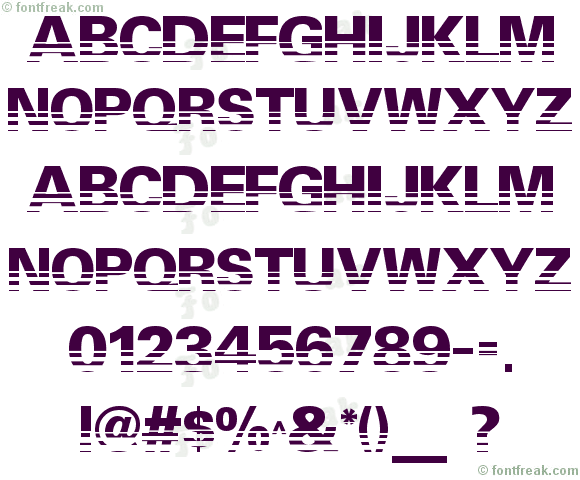
Ventilate
About Ventilate
Ventilate is a striking display font designed by Astigmatic One Eye, a division of Cav Op Studios, and released in 1996. This shareware font embodies a modern and innovative style, blending elements of both geometric and dynamic design. Characterized by its unique stroke weight and contrast, Ventilate features bold, thick lines that taper and flow into lighter strokes, creating a sense of movement and energy. The spacing between characters is well-balanced, ensuring readability while maintaining a visually engaging appearance.
This font is perfect for a variety of creative applications. It excels in use cases such as eye-catching movie posters, where its bold characteristics can grab attention and convey excitement. Additionally, Ventilate can elevate branding materials for modern restaurants or cafes, providing a contemporary feel to menus and signage. Its playful yet sophisticated design makes it an excellent choice for promotional materials for events like music festivals or art exhibitions, where a sense of creativity is paramount. Graphic designers, small business owners, and content creators will find this font particularly appealing, as it offers versatility without sacrificing uniqueness.
What truly sets the Ventilate font apart is its ability to infuse energy and modernity into any project. Whether used for digital graphics or print media, it stands out with a distinctive flair that captures the essence of contemporary design. The Ventilate font free download allows users to experiment with this striking typeface and incorporate its bold personality into their creative endeavors, making it a valuable addition to any designer's toolkit. Embrace the innovative spirit of Ventilate and transform your projects with its captivating style.